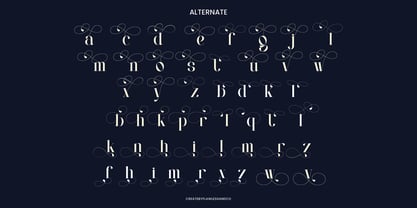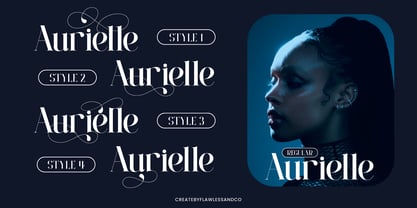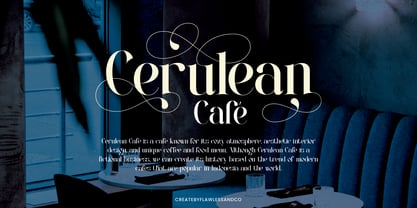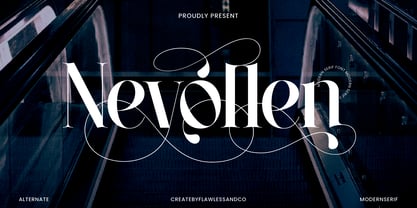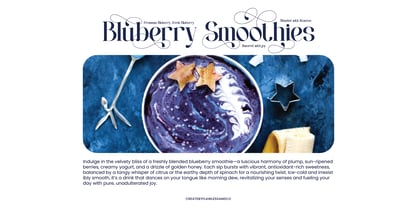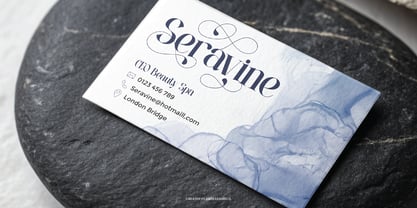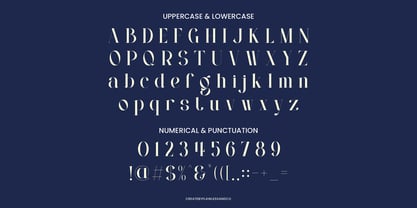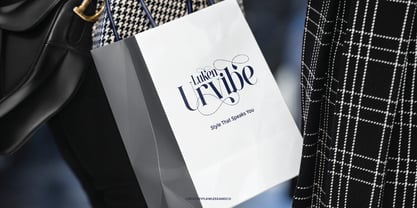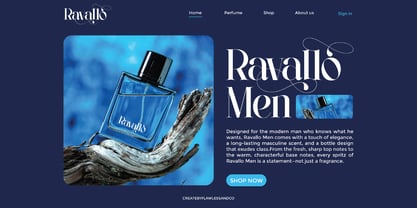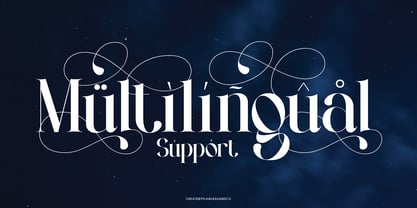
Nevollen
The Nevollen Font Family was designed by Achmad Yani and published by Flawlessandco. Nevollen contains 1 styles. More about this family
NEVOLLEN is a modern serif font that blends refined structure with bold sophistication. Inspired by timeless editorial design and elevated with a contemporary edge, NEVOLLEN stands out with its high contrast, sharp serifs, and sleek letterforms. Perfect for impactful design projects such as fashion branding, editorial layouts, logo design, and elegant packaging, NEVOLLEN brings a confident and polished presence to any composition. Each letter is carefully crafted to balance modern minimalism with classic detail, giving your typography a sense of both authority and style.
Features :
Multilingual, Uppercase alphabet A-Z, Lowercase alphabet a-z, Numbers 0-9, Some punctuation, Alternates & Ligatures